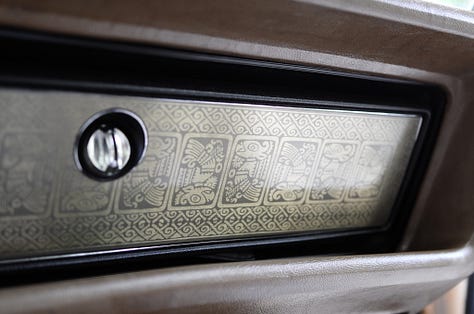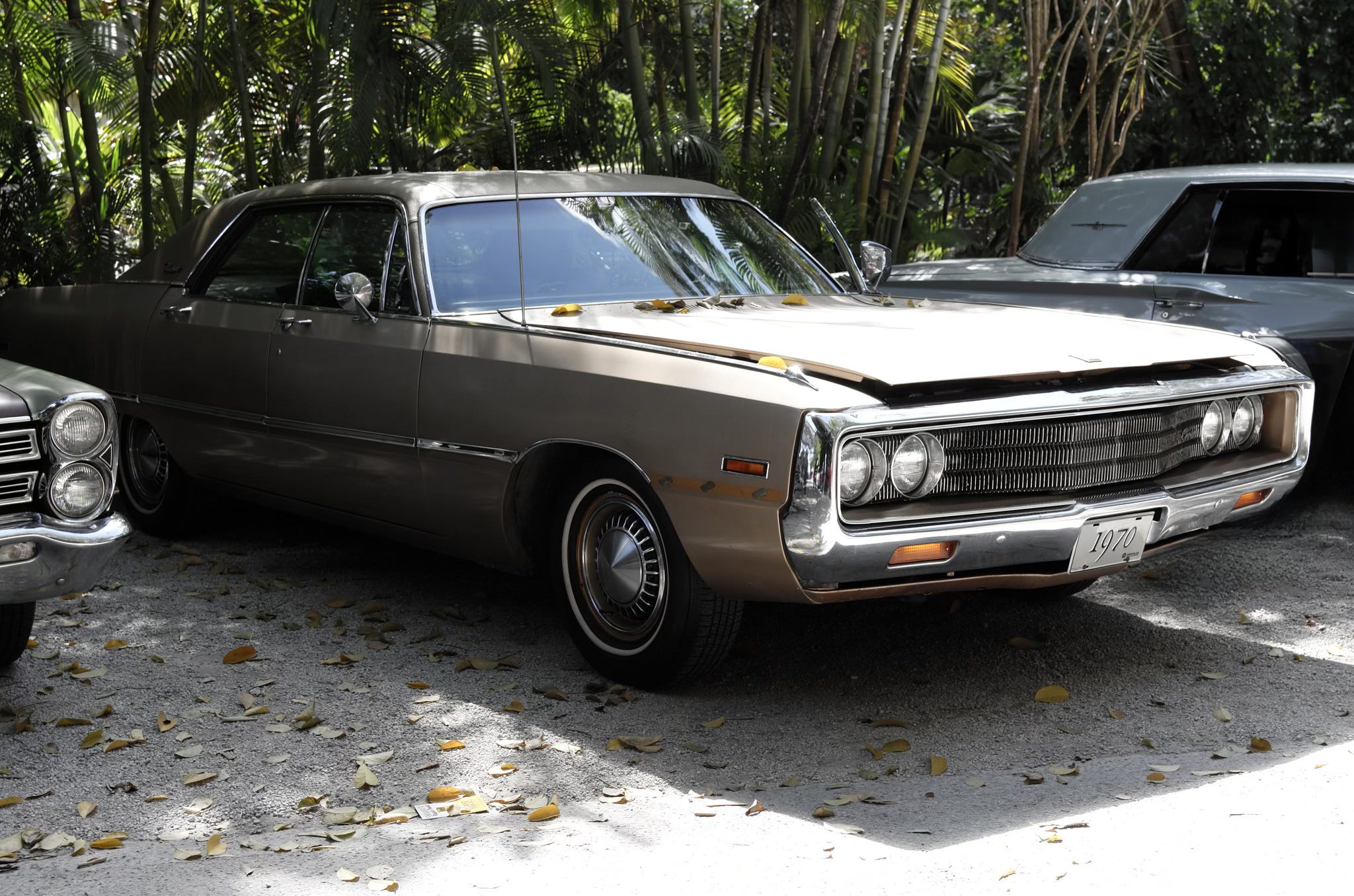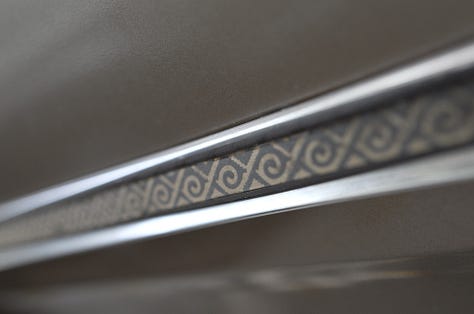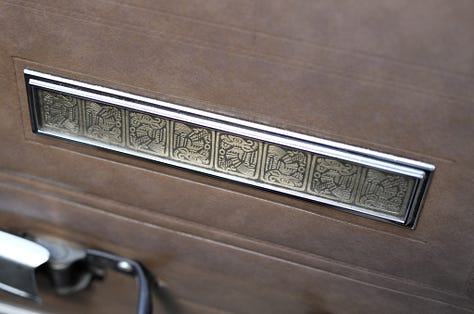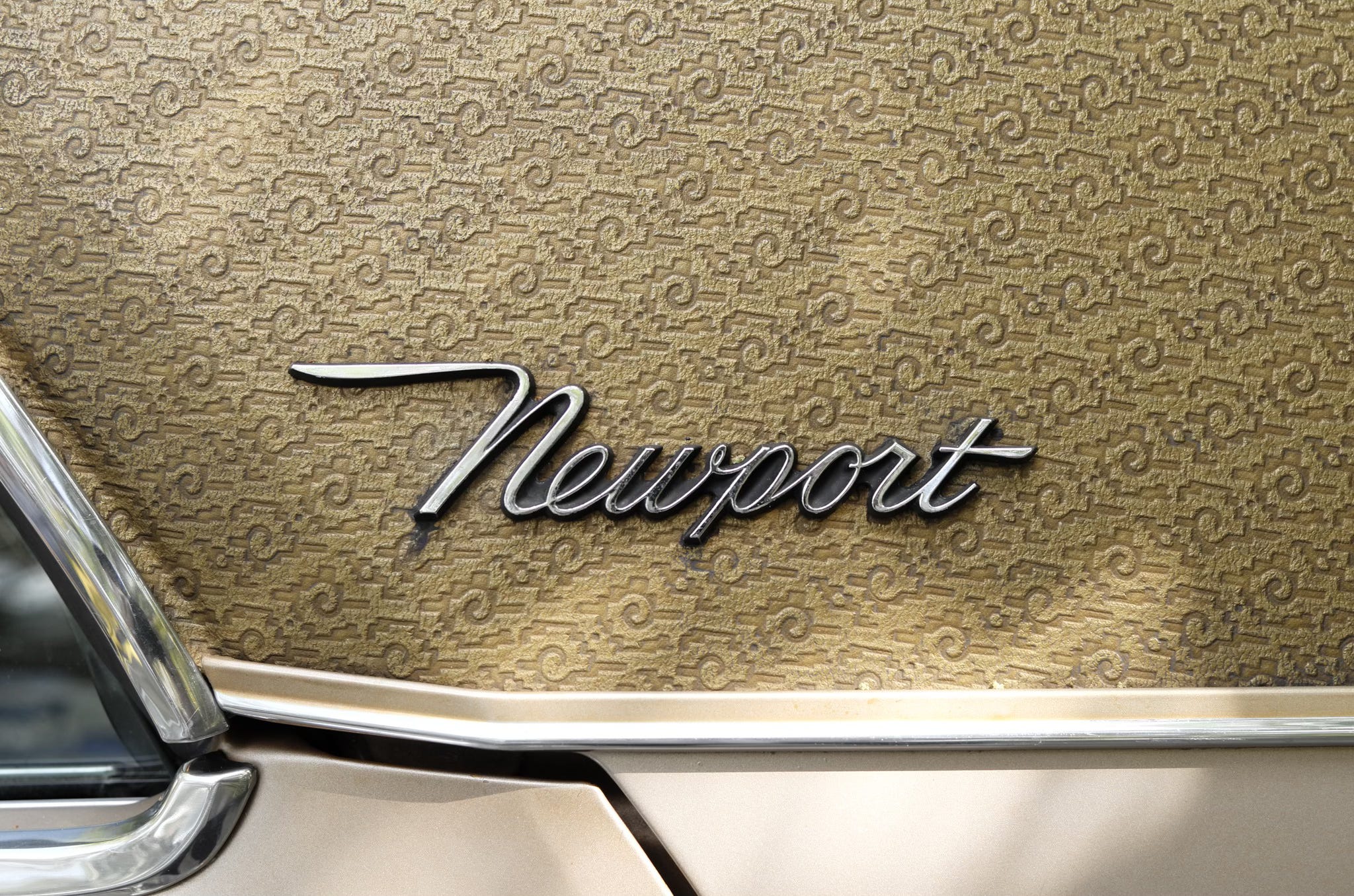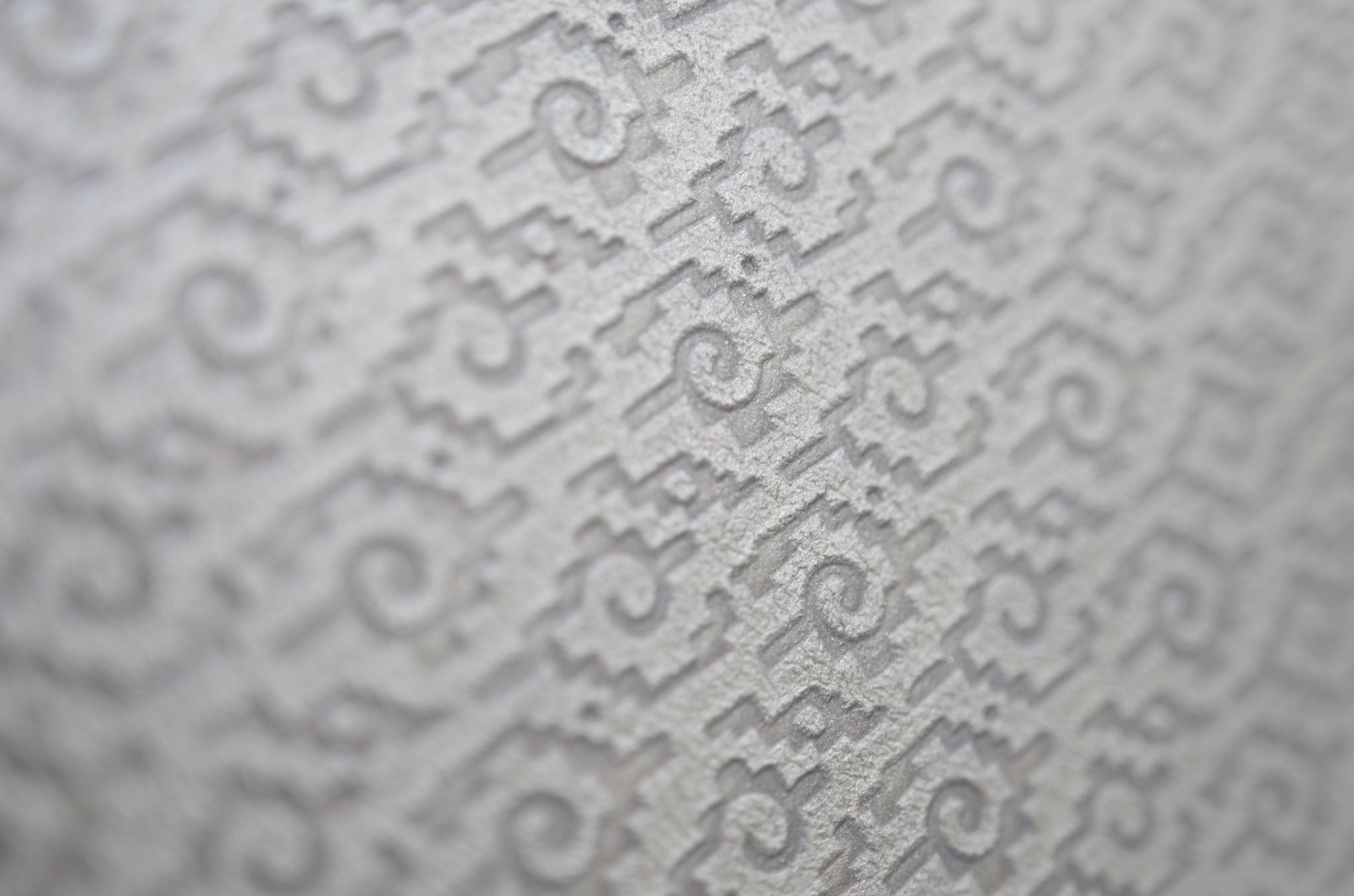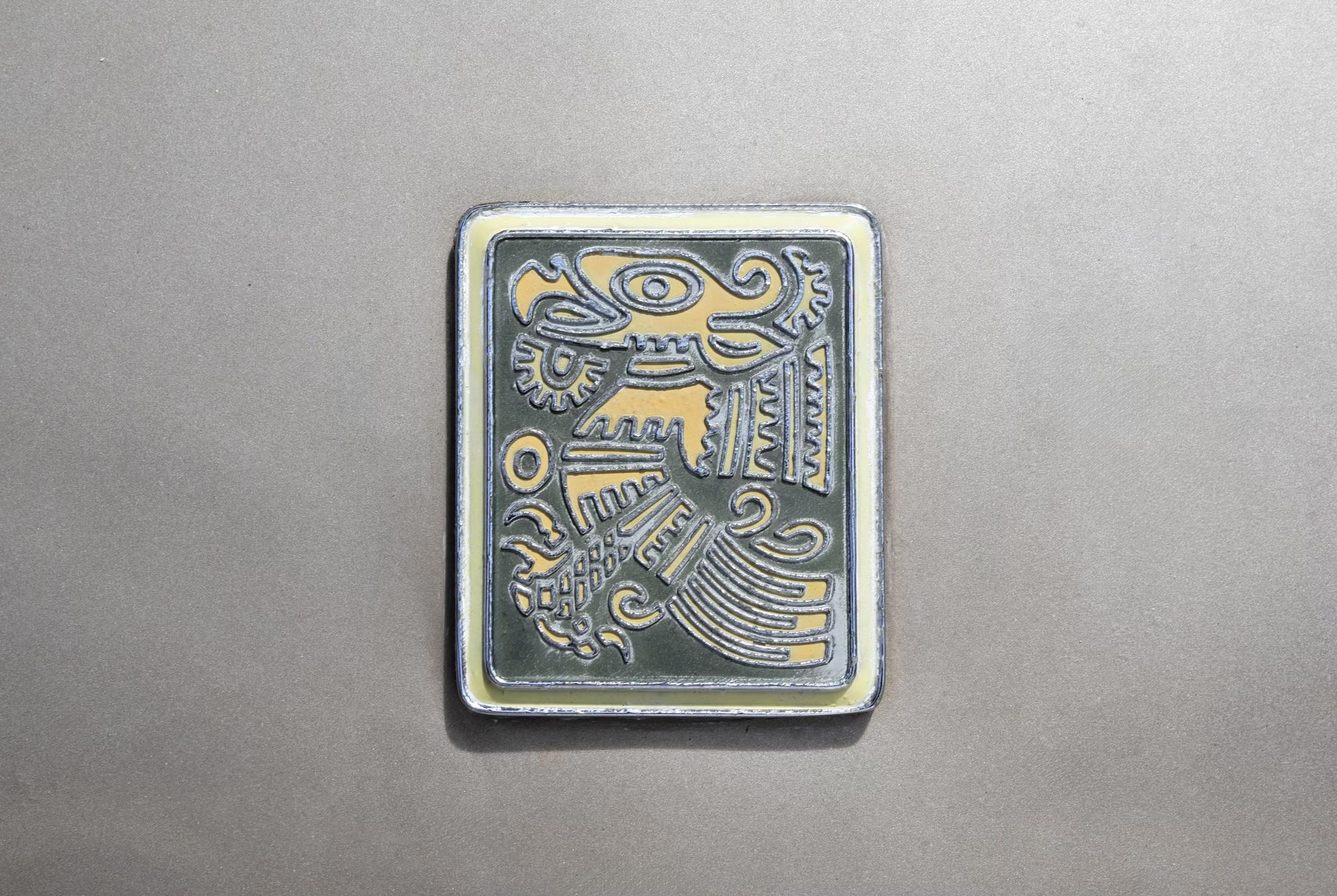
1970 Chrysler Newport CordobaWith an Aztec motif.CARTYPEOct 06, 20252Share1970 Chrysler Newport Cordoba (©Photo by Segura)The 1970 Chrysler Newport Cordoba was a limited-edition luxury car with an Aztec motif. It featured an “Aztec” eagle hood ornament, gold vinyl seats, and a gold vinyl roof.1970 Chrysler Newport Cordoba “Aztec” emblem (©Photo by Segura)1,868 2 door hardtop sold and the 4 door hardtop sold 1,873 copies, making for a total 3,741 Newport Cordobas.1970 Chrysler Newport Cordoba (©Photo by Segura)1970 Chrysler Newport Cordoba interior details (©Photo by Segura)1970 Chrysler Newport Cordoba fabric detail (©Photo by Segura)Thanks for reading! Subscribe for free to receive new posts and support my work.SubscribePreviousNext